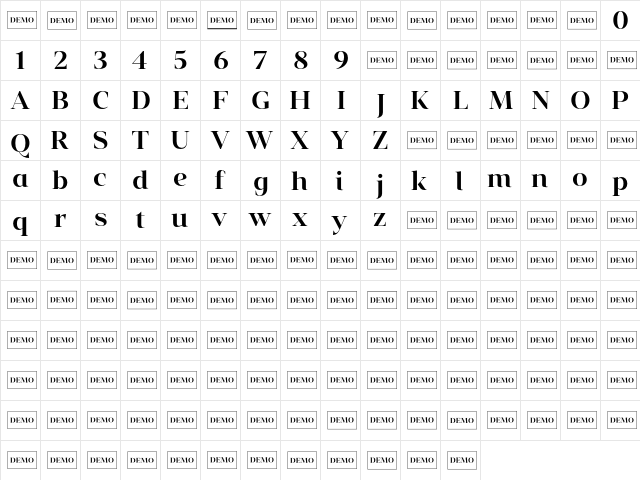
Vendura SemiBoldDemo
SemiBoldDemo · Marc Lohner Marc Lohner ·
DesignerMarc Lohner
Design Context for Vendura Typeface
Vendura is a composed and adaptable typeface that performs quietly and consistently across a wide range of design contexts. The heavy weight commands attention and anchors typographic hierarchies.